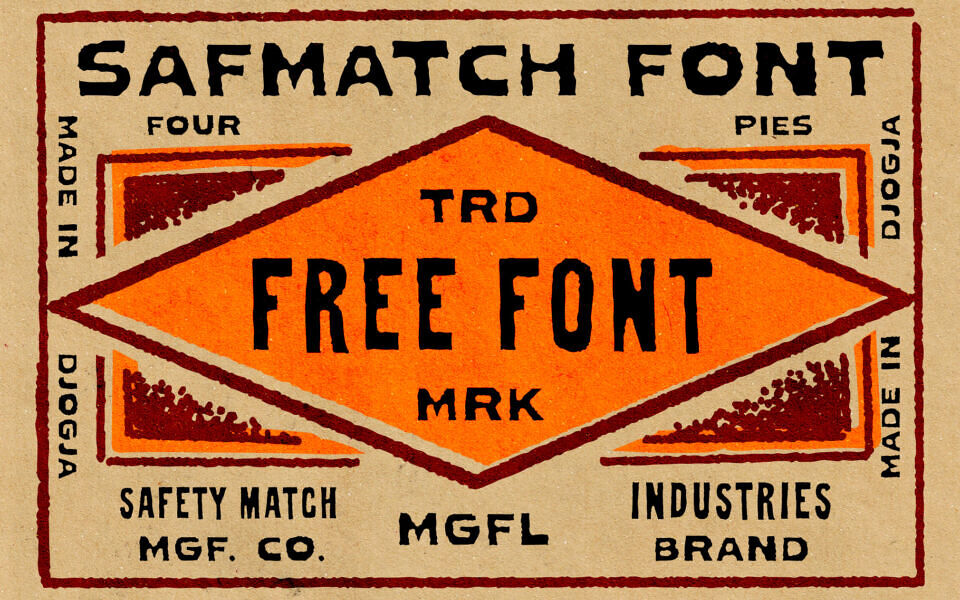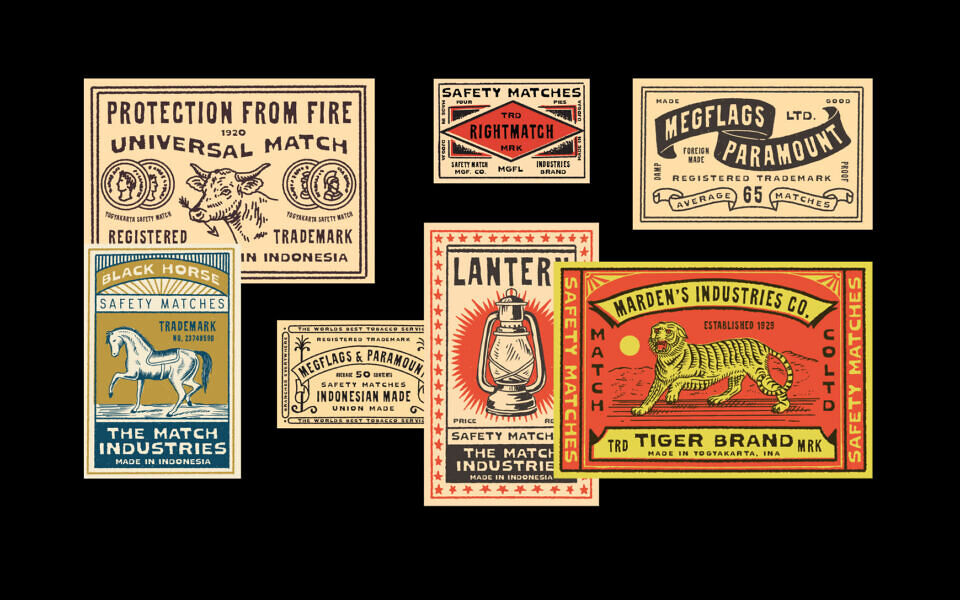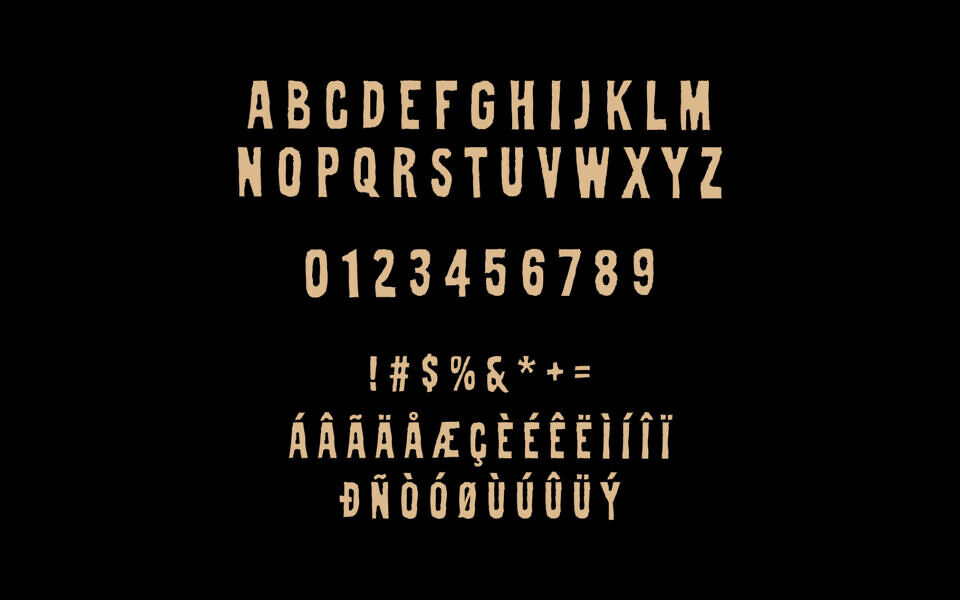
Inspired by the raw, nostalgic aesthetic of safety matchboxes from the 1980s and 90s, Safmatch is a striking display font defined by its super-raw edges and bold, industrial structure. This typeface effortlessly channels a vintage grit, making it perfect for standout branding, packaging, and headlines.
Built for versatility, Safmatch includes multilingual support, two styles (Condensed + Extended), and is completely free for both personal and commercial use, offering designers a powerful tool for impactful, retro-contemporary creations.